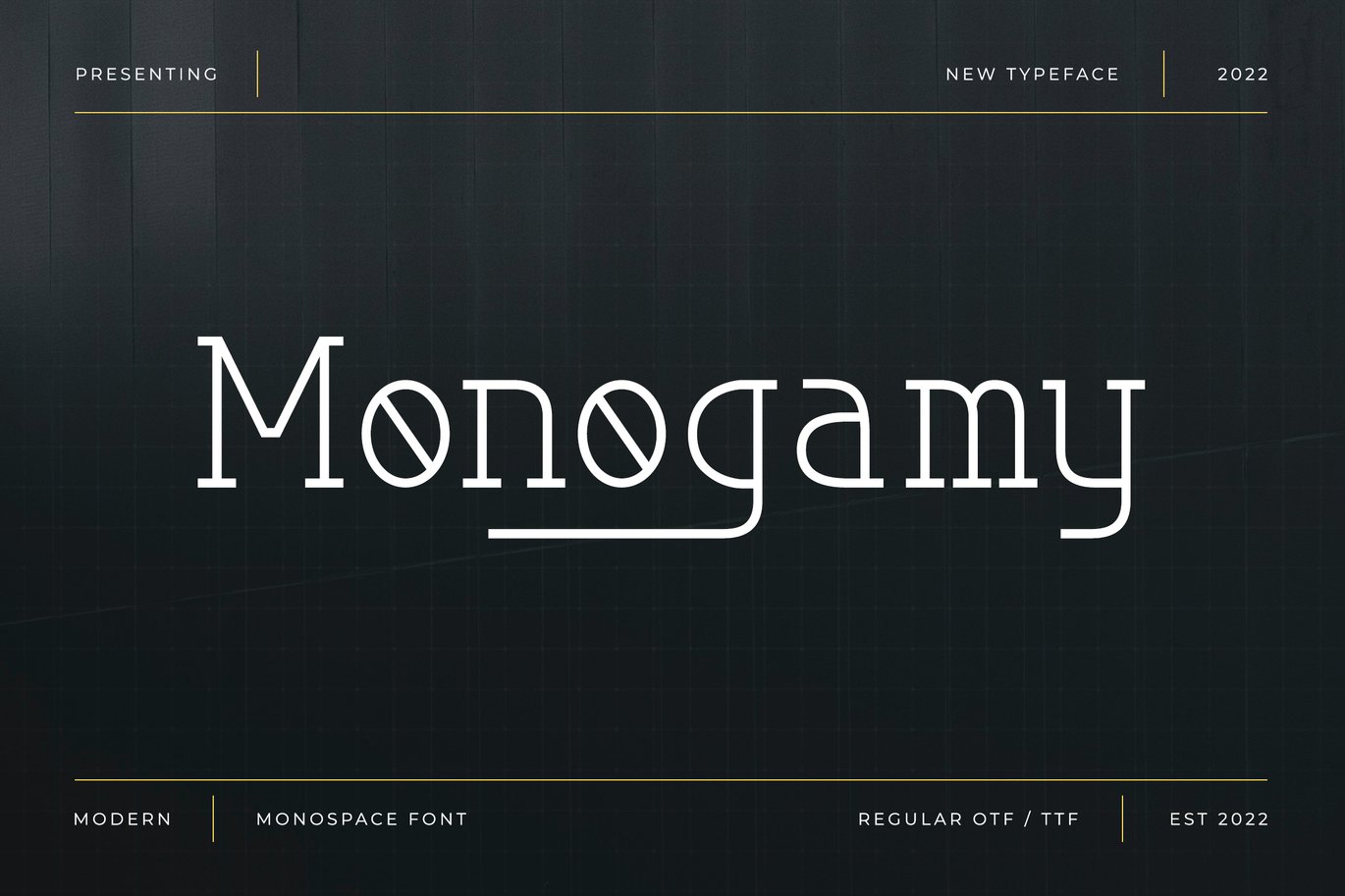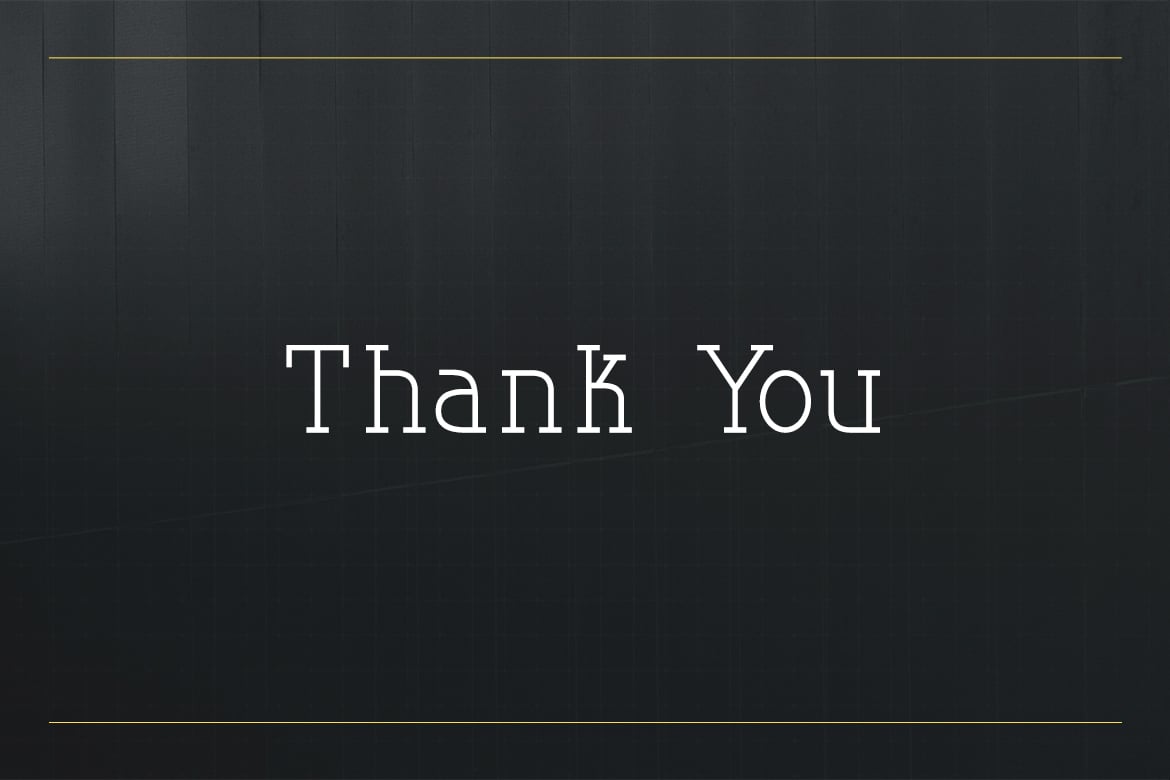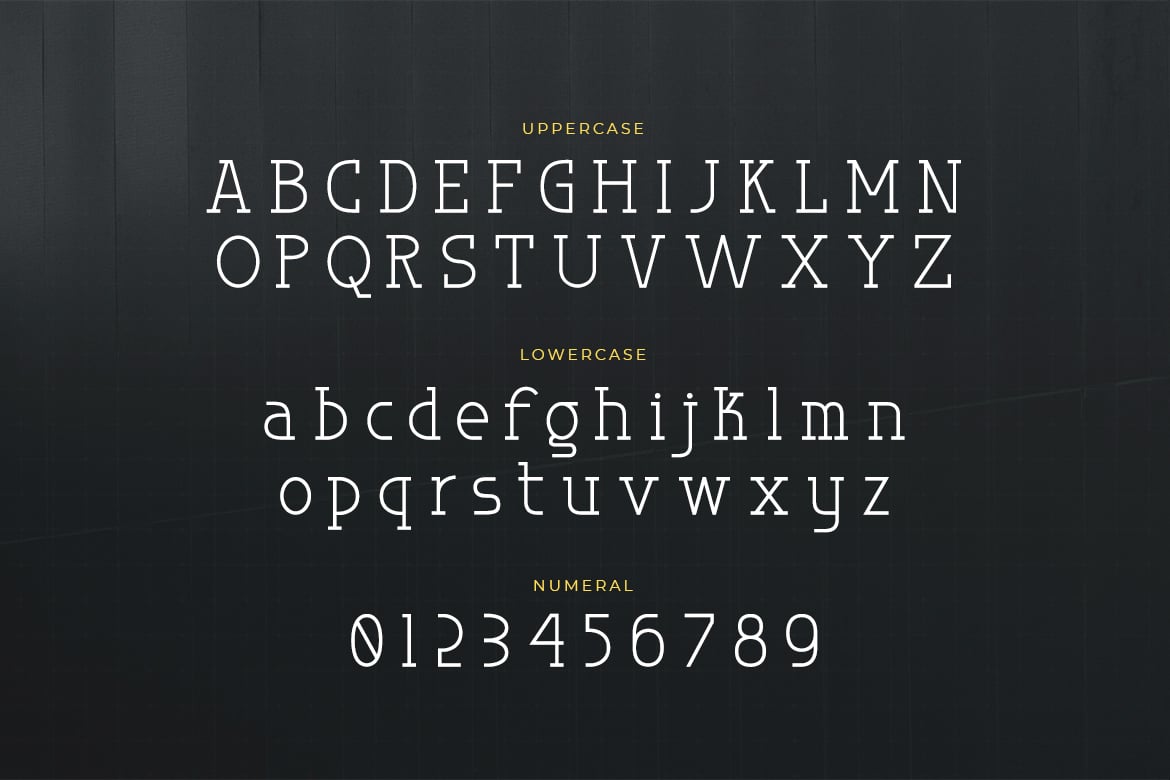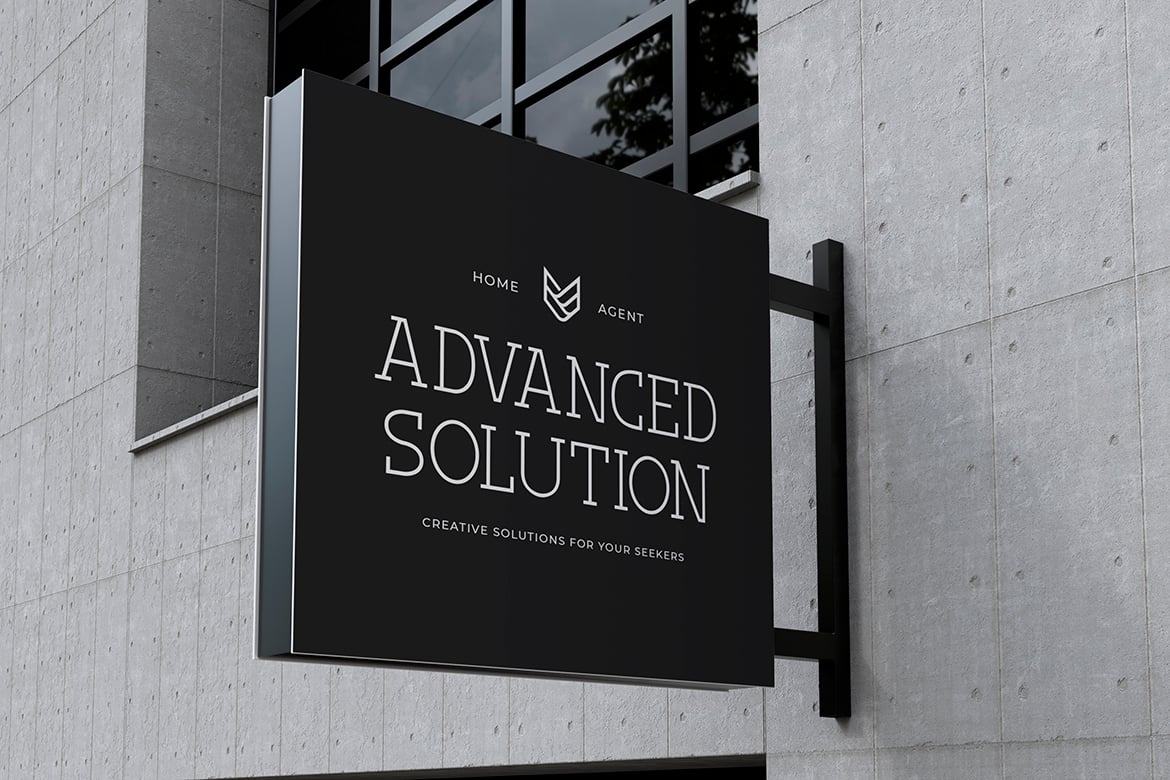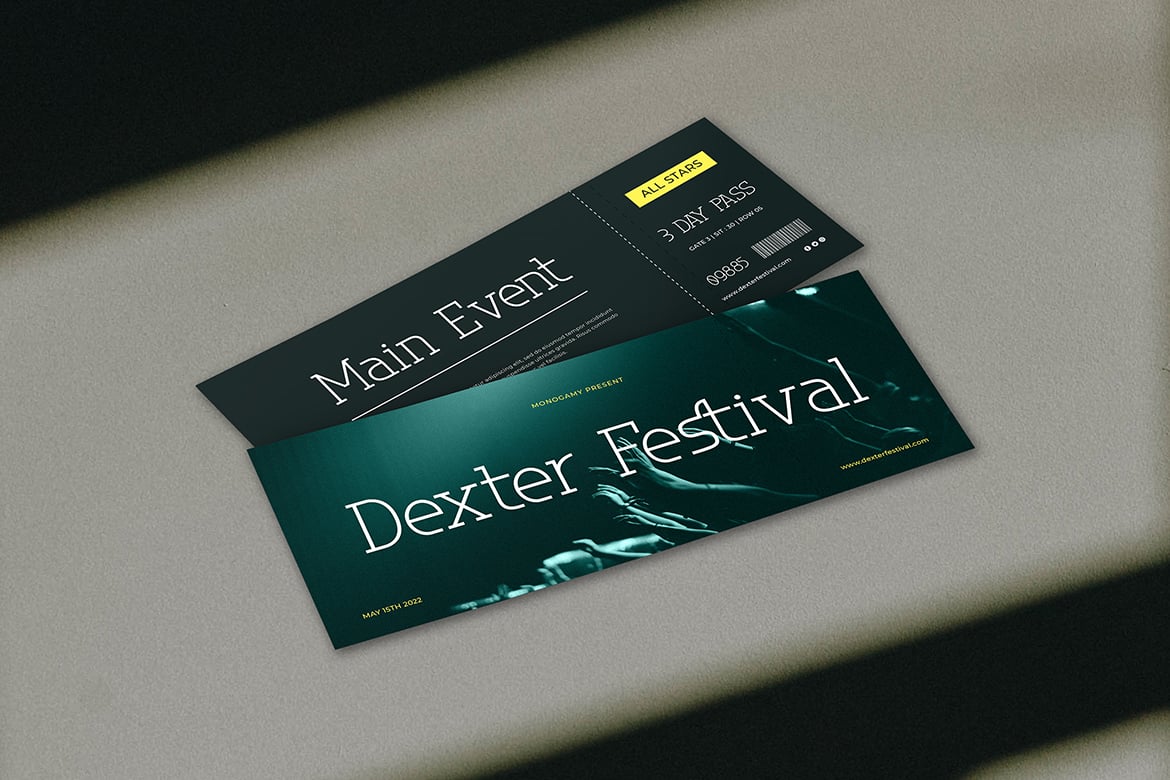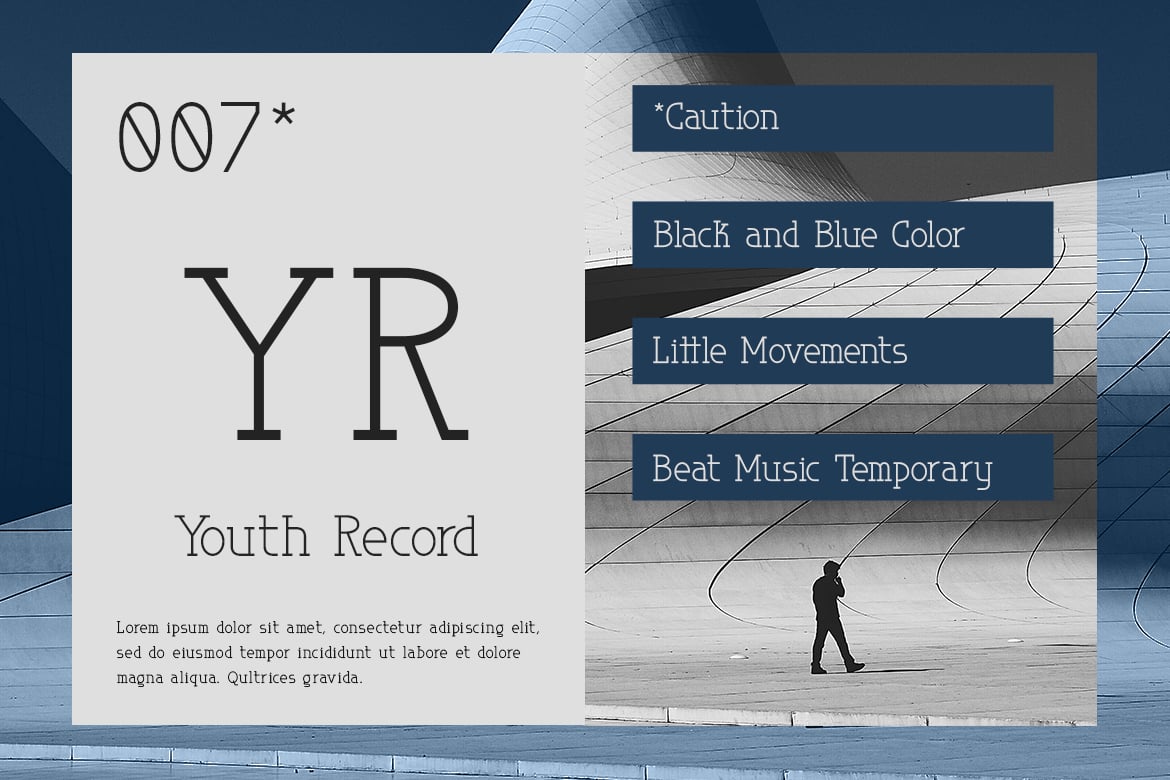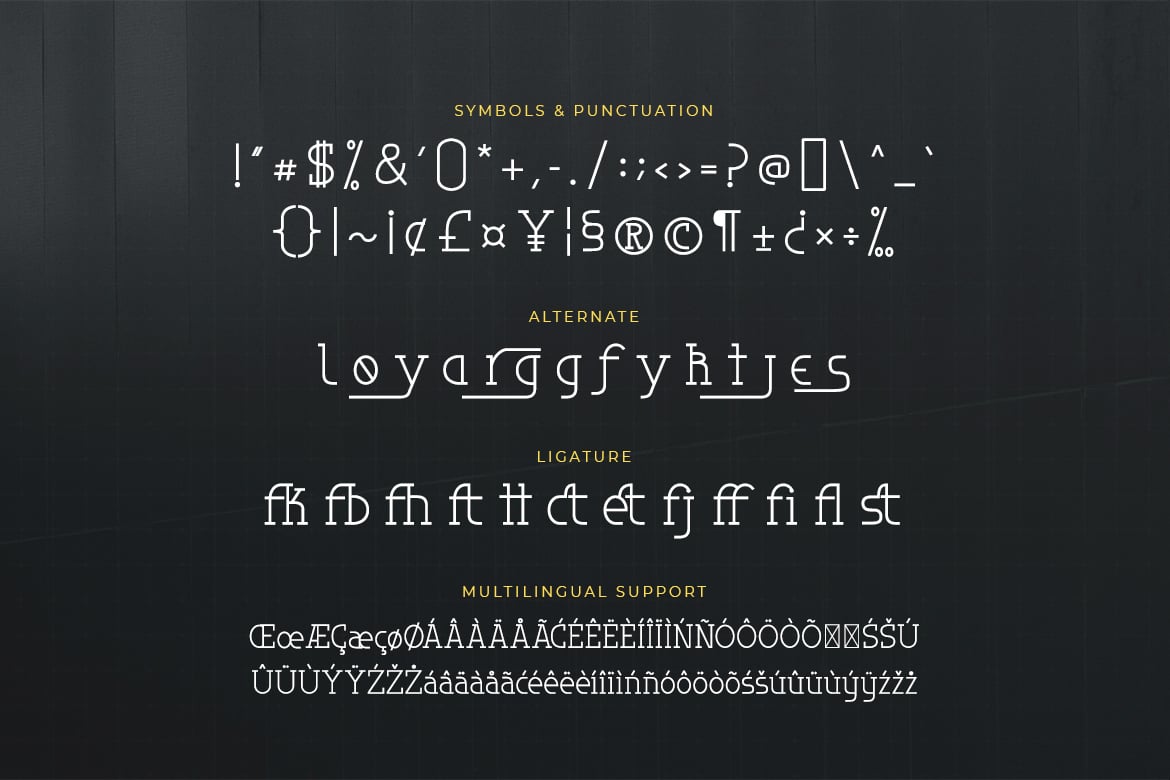
Monogamy – Modern Monospace Font
Monogamy is a modern monospace display font perfect for a wide variety of designs.
Add this beautiful display font to each of your creative ideas, and notice how it makes them stand out!